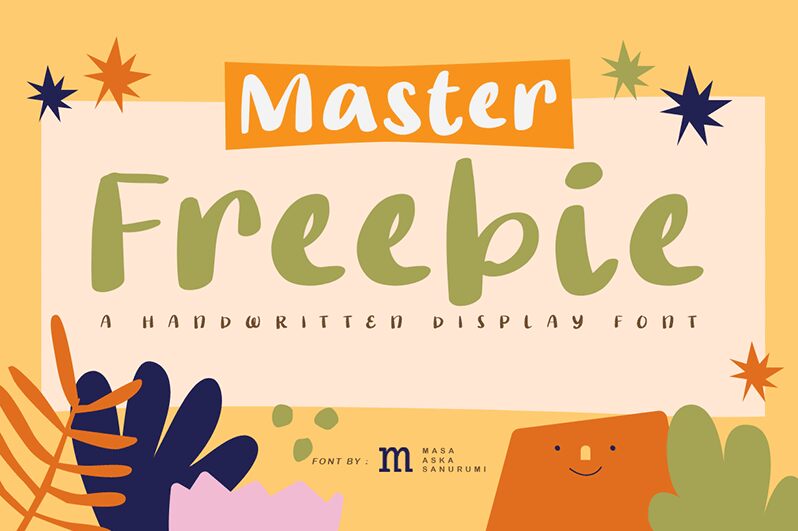
Master Freebie, designed by Masa Aska Sanurumi, exudes a bold charm that captures the spontaneity and flair of handcrafted artistry. This display font boasts a robust presence with its pronounced strokes and an undeniable warmth that seems to dance across the page. Each letter is infused with personality, making it perfect for projects that require a touch of human touch.
The aesthetic appeal of Master Freebie lies in its ability to marry the casual elegance of handwritten script with the impact of a display font. It's an ideal choice for branding, eye-catching headlines, or any design work where you want to make a statement without sacrificing intimacy and character. With Master Freebie, designers can create compelling visuals that resonate with authenticity and artistic flair.